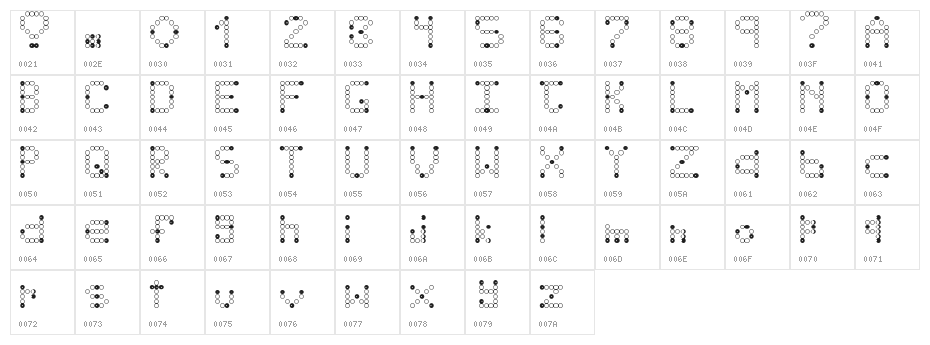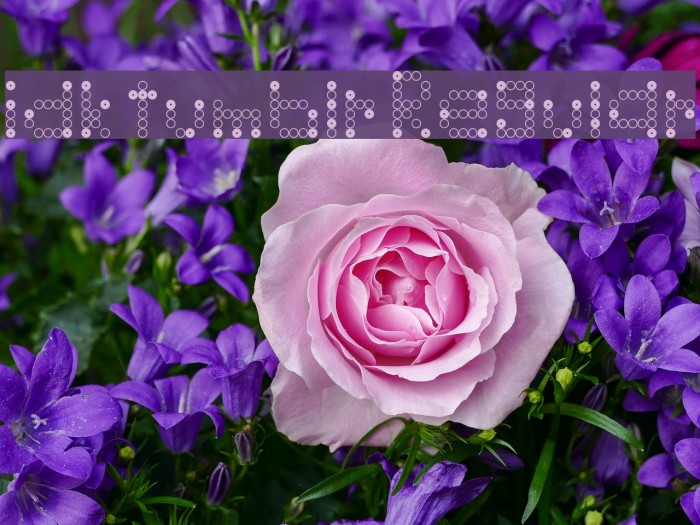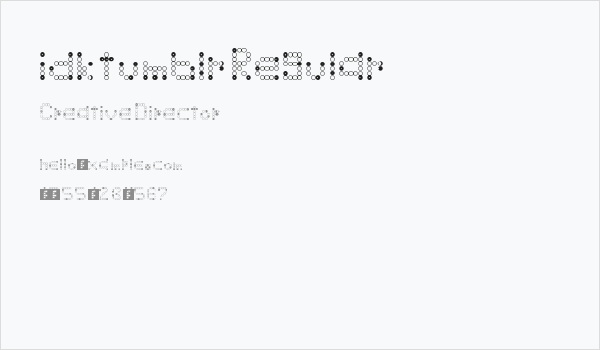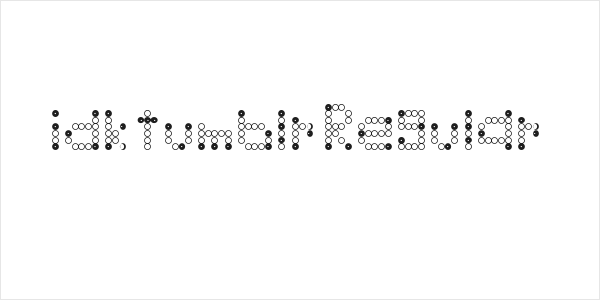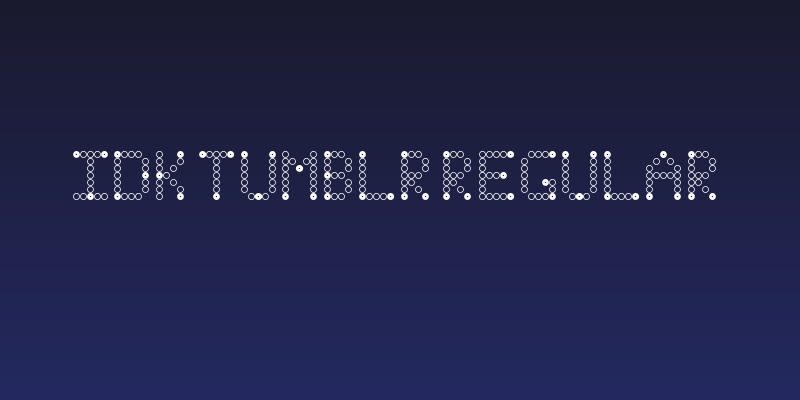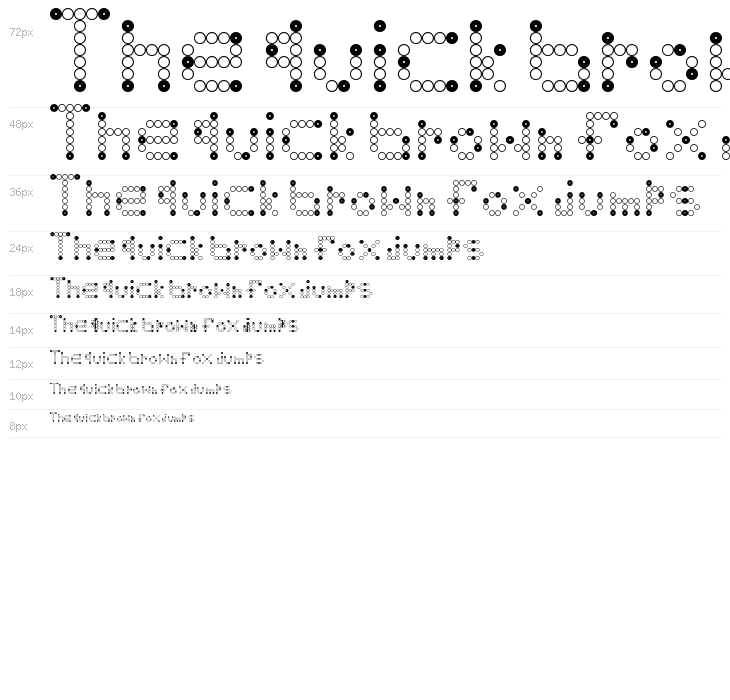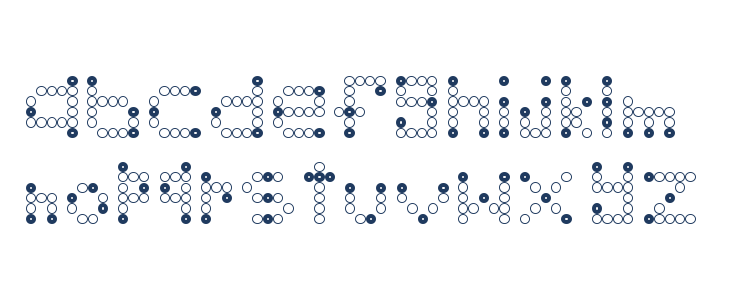
idk tumblr Regular Font
idk tumblr Regular Description
This font features a unique design composed of circular dots forming each character, creating a playful and modern appearance. The letters are constructed with a grid-like pattern, where each dot is evenly spaced, giving a pixelated yet cohesive look. The uppercase and lowercase letters maintain a consistent style, with rounded edges and a geometric structure. Numbers and special characters follow the same dot-based design, ensuring uniformity across all glyphs. This font stands out with its decorative and artistic flair, making it suitable for creative projects that require a distinctive and eye-catching typeface.